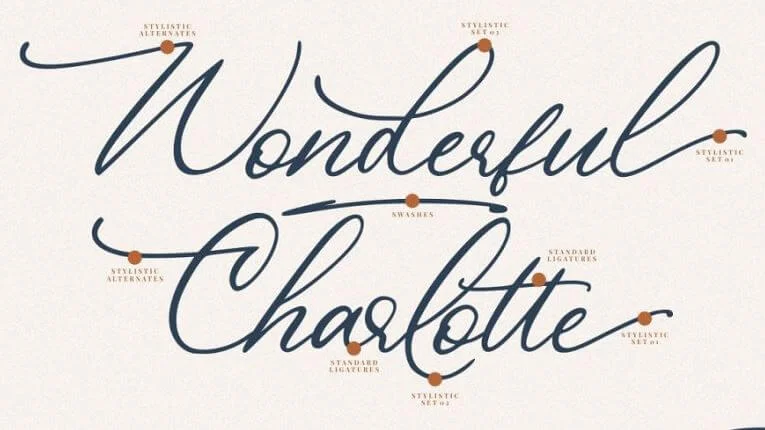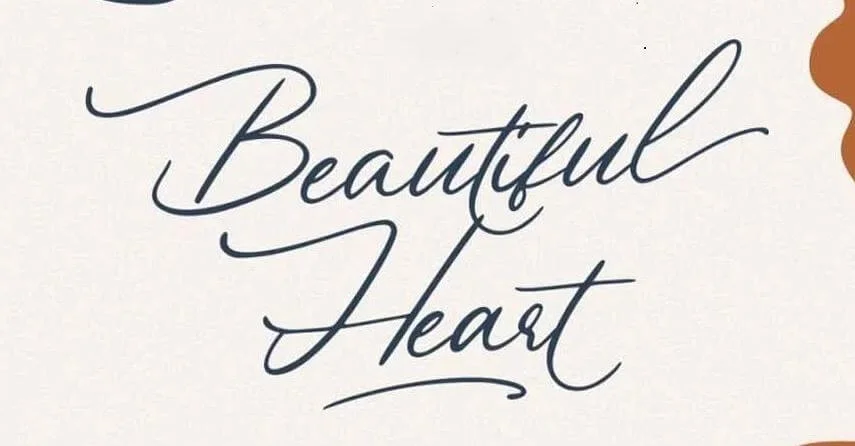
Best proficient hand-picked gathering of Heart textual styles that can give an increasingly masterful look to your plan. These brush and content text styles dependent on the statement of precise penmanship.
Heart textual styles will work splendidly for design, internet business brands, online pattern journals, wedding boutiques, or any business that needs to seem upscale and chic. The net gives a broad scope of amazing sans textual cost styles for planners if you comprehend where to look.
Heart textual styles Suitable for Logo, identifications, welcoming cards, cites, blurbs, marking, name card, stationary, structure title, craftsmanship quote or book configuration, happening style like hand-drawn plan or watercolor configuration subject, or any reason to make our specialty/structure venture look pretty and popular.
They can be found in all kinds of designs retro text styles, penmanship textual styles, just as Heart textual styles, to give some examples. In this post, we’re concentrating on Pauls Circus Font text styles, which can incorporate a lively, human system to your techniques.
Besides, they look spectacular print. Heart Script is present-day and rich text style content. Accompanies numerous open-type highlight, upper and lower case standard character, elaborate exchanges, starting and finishing, and a lot more glyph.
Ideal for individual and business utilize your organization logo, marking, notice, flyers, welcome, greeting, book spread, cites, and some more. It incorporates 95 characters, every one of which is individual and stand-out.
The textual style incorporates the two capitals just as lowercase characters, alongside numbers and all the accentuation and symbols you’ll require, bauhaus font of them hand-drawn with a certified and scratchy brush structure.